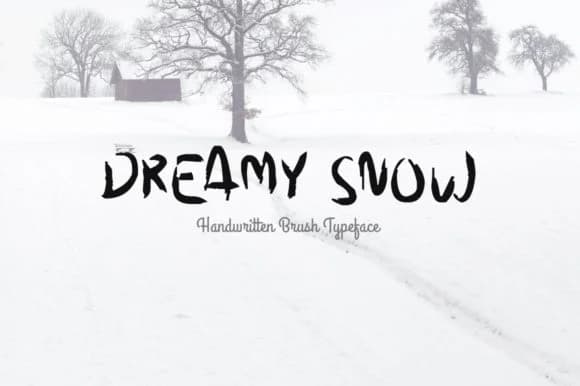
Dreamy Snow by Shattered Notion is a flowing brush script that brings natural elegance to contemporary design. With its smooth, brushed letterforms and authentic character, this font excels at creating sophisticated visual identities for luxury brands and artisanal businesses seeking a modern yet personal touch.
The font performs beautifully across numerous applications, from developing packaging for handmade cosmetics and beauty products to designing greeting card collections that capture heartfelt emotion. Its brush characteristics make it ideal for creating social media graphics for lifestyle brands, crafting wedding invitation suites, and building indie product labels that stand out on retail shelves. The fluid letterforms work seamlessly across both digital and print contexts, allowing designers to maintain consistent, cohesive branding from website headers to printed materials, event announcements, and artistic portfolios.
Dreamy Snow's natural aesthetic appeals to designers working in the luxury, wellness, and creative industries where handmade appeal matters. Whether you're establishing a boutique brand identity or bringing warmth to editorial projects, this versatile script delivers visual strength without sacrificing readability or professional polish. Add Dreamy Snow to your Creative Fabrica library and explore the possibilities it brings to your next design project.
Dreamy Snow Font is a script font that shines as a display or heading face. Pair it with a clean sans-serif or serif font for body text β the contrast creates a clear hierarchy while the two styles stay balanced and easy to read.